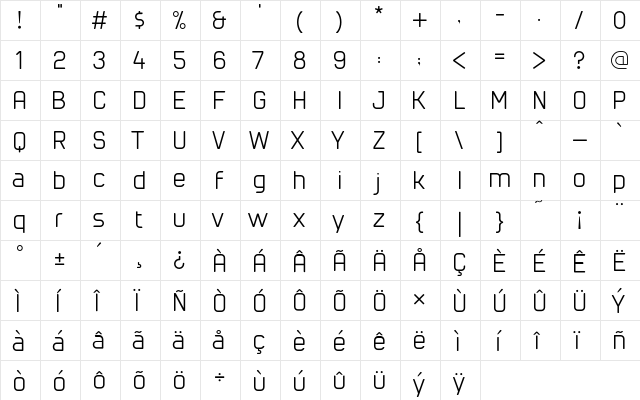
cuyabra Regular
| Foundry | N鳴or Jairo Delgado Giraldo |
| Designer | N鳴or Jairo Delgado Giraldo |
Design Context for cuyabra Typeface
cuyabra takes a measured approach to typography — its balanced proportions and neutral character make it a reliable workhorse for both digital and print work.